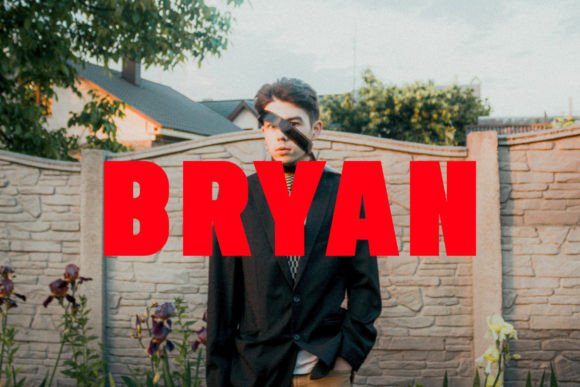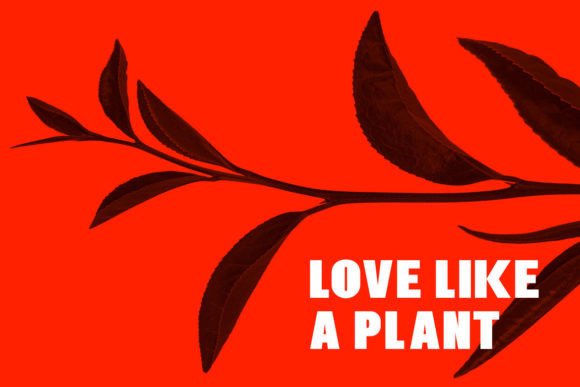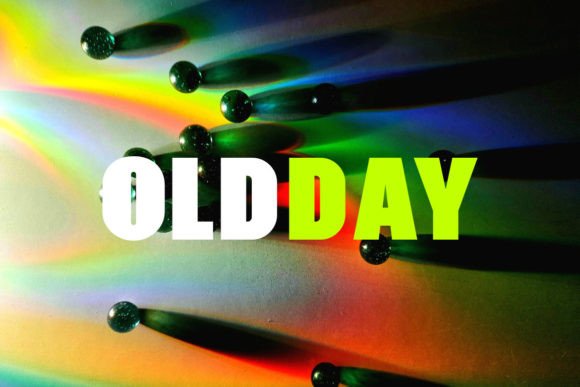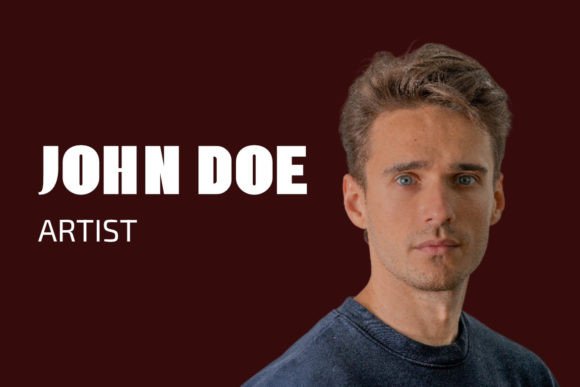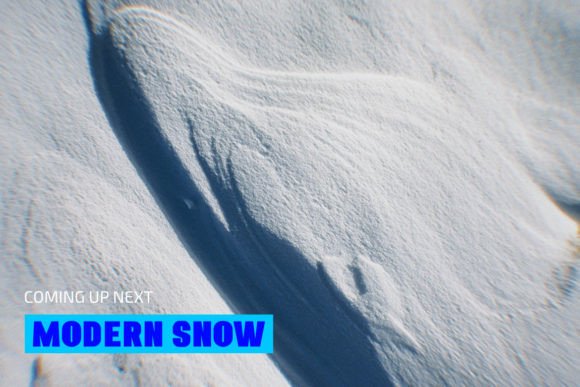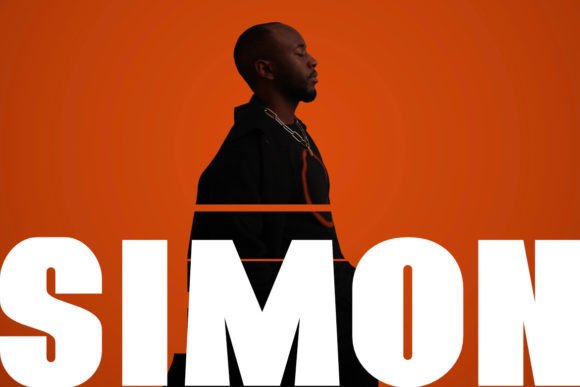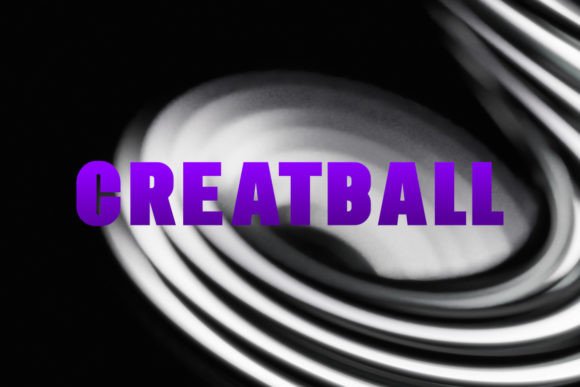
Creatball Font: The Ultimate Sans-Serif for Modern Designs
In the world of typography, fonts play a crucial role in making or breaking a design. A well-chosen font can elevate your project, making it stand out from the crowd, while a poorly chosen one can lead to a messy and unprofessional look. For designers and crafters looking for a font that embodies modernity, simplicity, and sophistication, Creatball Font is an excellent choice. In this article, we’ll dive into the features and benefits of Creatball Font, and explore how it can help you create impeccable modern designs.
What is Creatball Font?
Creatball Font is a sans-serif typeface that has gained popularity among designers and crafters for its clean, modern, and straightforward aesthetic. This font is characterized by its bold and solemn appearance, making it perfect for projects that require a strong and confident look. Whether you’re working on a logo, branding materials, or digital content, Creatball Font is an excellent choice.
Key Features of Creatball Font
Creatball Font boasts several key features that make it an attractive option for designers and crafters:
- Bold and straightforward: Creatball Font has a bold and straightforward design that commands attention and exudes confidence.
- Solemn and clean: The font’s solemn and clean appearance makes it perfect for projects that require a professional and modern look.
- Modern and sans-serif: Creatball Font’s modern and sans-serif design ensures that your project looks contemporary and sleek.
Benefits of Using Creatball Font
Using Creatball Font in your designs offers several benefits:
- Versatility: Creatball Font is versatile and can be used in various design projects, from logos and branding materials to digital content and print materials.
- Readability: The font’s clean and simple design ensures excellent readability, making it perfect for body text and headings.
- Uniqueness: Creatball Font’s bold and modern design sets it apart from other fonts, giving your project a unique and distinctive look.
Tips and Tricks for Working with Creatball Font
Here are some tips and tricks for working with Creatball Font:
- Pair with other fonts: Pair Creatball Font with other fonts to create a unique and visually appealing combination.
- Use in combination with images: Use Creatball Font in combination with images to create a striking and effective design.
- Experiment with different weights: Experiment with different weights and styles to add depth and interest to your design.
In conclusion, Creatball Font is an excellent choice for designers and crafters looking for a modern, clean, and sophisticated sans-serif font. With its bold and straightforward design, Creatball Font is perfect for creating impeccable modern designs that stand out from the crowd. Whether you’re working on a logo, branding materials, or digital content, Creatball Font is a versatile and reliable choice.